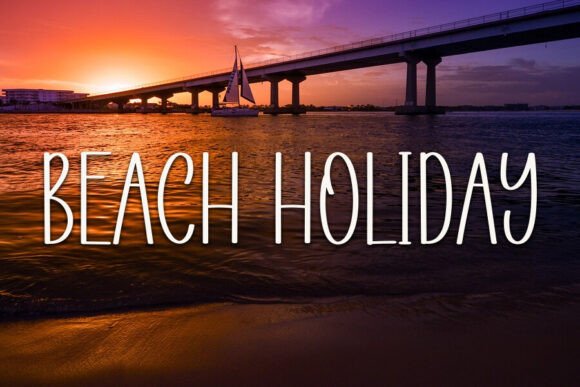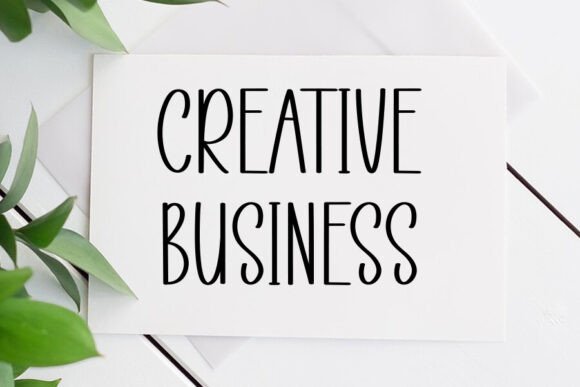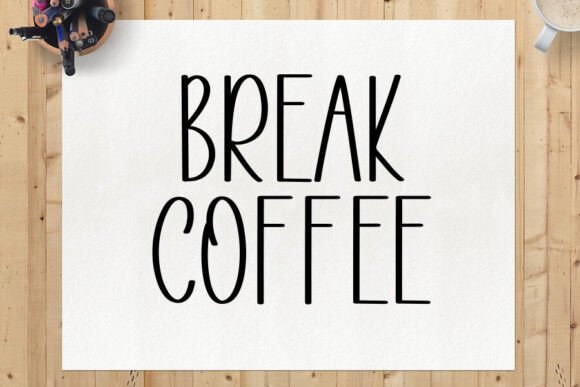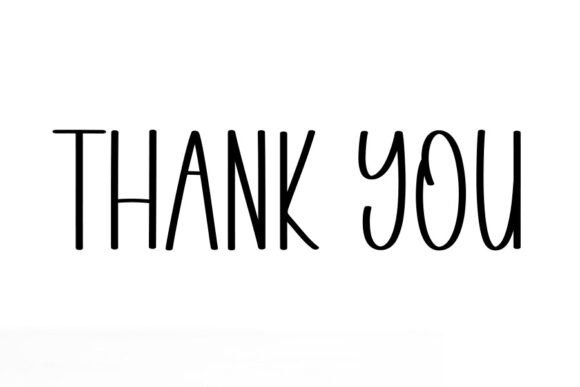
Introducing Afternoon Font: Elevate Your Designs with Timeless Elegance
Are you tired of using the same old fonts in your design projects? Look no further than Afternoon Font, a trendy handwritten font that brings a contemporary atmosphere and impeccable form to your creations. Inspired by timeless classic calligraphy, Afternoon Font is the perfect addition to any designer’s toolkit.
The Story Behind Afternoon Font
Afternoon Font is a carefully crafted font that draws inspiration from the elegance of classic calligraphy. With its smooth, flowing lines and precise letterforms, this font is designed to evoke a sense of sophistication and refinement. Whether you’re working on a branding project, a wedding invitation, or a fashion editorial, Afternoon Font is the perfect choice for adding a touch of elegance and class.
Key Features of Afternoon Font
- Trendy and Contemporary: Afternoon Font boasts a modern and fresh aesthetic that’s perfect for designers looking to stay on top of the latest trends.
- Handwritten with Love: Each letterform has been carefully crafted by hand, giving Afternoon Font a unique and personal touch.
- Impeccable Form: The font’s precise lines and curves ensure that it remains legible and visually appealing, even at small sizes.
- Timeless Classic Calligraphy Inspiration: Afternoon Font draws inspiration from the greats, ensuring that your designs will stand the test of time.
How to Use Afternoon Font in Your Designs
Afternoon Font is incredibly versatile and can be used in a wide range of design projects, including:
- Branding and Logos: Add a touch of elegance to your brand’s identity with Afternoon Font.
- Wedding Invitations and Stationery: Make your wedding stationery truly special with the beautiful, flowing lines of Afternoon Font.
- Fashion Editorials and Magazines: Elevate your fashion designs with the sophisticated and refined aesthetic of Afternoon Font.
- Packaging and Product Design: Stand out on store shelves with Afternoon Font’s unique and eye-catching style.
Tips for Getting the Most Out of Afternoon Font
To truly make the most of Afternoon Font, try the following tips:
- Experiment with Font Sizes: Afternoon Font looks great at a range of font sizes, from large headings to smaller body text.
- Play with Color: The elegant lines of Afternoon Font lend themselves perfectly to bold, bright colors.
- Mix and Match with Other Fonts: Combine Afternoon Font with other fonts to create a unique and eye-catching typography style.
Afternoon Font is a truly special font that brings a touch of timeless elegance to any design project. With its trendy, contemporary aesthetic and impeccable form, it’s the perfect addition to any designer’s toolkit. Whether you’re working on a branding project, a wedding invitation, or a fashion editorial, Afternoon Font is sure to elevate your designs and leave a lasting impression.